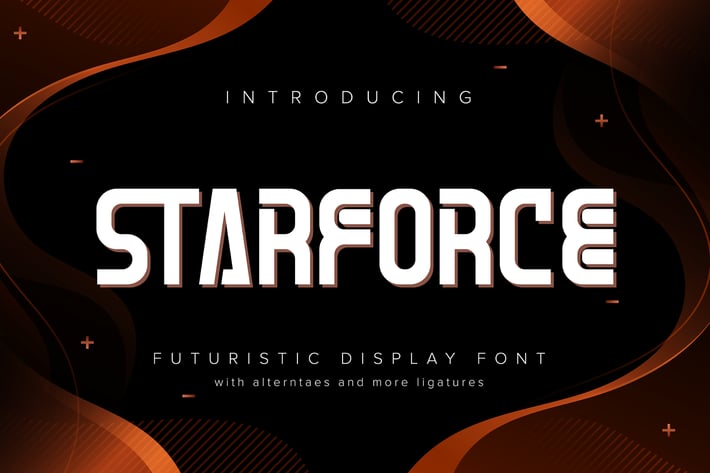
Starforce | Futuristic Display Typeface
Starforce | Futuristic Display Typeface with a calligraphy style, So beautiful on invitation like greeting cards, branding materials, business cards, quotes, posters, and more!